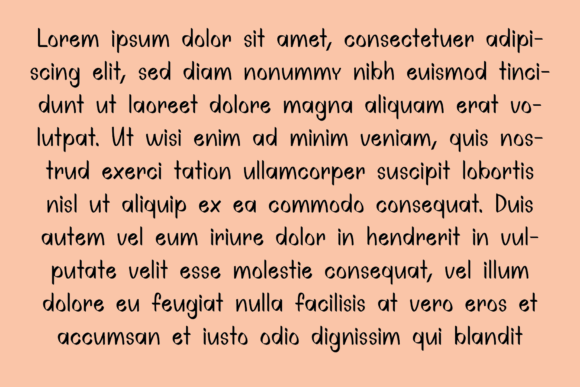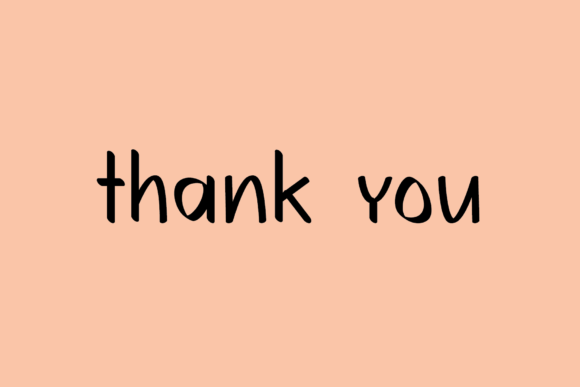
Unleash Your Creativity with the Caracal Font
Have you ever been stuck in a creative rut, staring blankly at your design software, searching for that perfect font to bring your vision to life? You’re not alone. We’ve all been there. But what if you could add a dash of whimsy and fun to your designs with a single click?
Enter the Caracal Font, a delightful handwritten typeface that’s sure to brighten up any project. Whether you’re crafting a logo, wedding invitation, or advertisement, this charming font is the perfect addition to elevate your design. Its friendly and quirky nature makes it a valuable asset for designers looking to add a personal touch to their work. With the Caracal Font, you’ll be able to create designs that truly stand out from the crowd.
- Unique Characteristics: Caracal Font features a unique blend of modern and geometric elements, resulting in a distinctive and eye-catching design.
Designer Review: Caracal Font
I recently had the chance to work with the Caracal Font, and I must say, it’s a mixed bag. While it has some great qualities, it also has some limitations that might make it less suitable for certain projects.
- ✨ Unique Design: The Caracal Font has a distinctive, exotic feel to it, making it perfect for projects that need a bit of flair.
- ✨ Versatile: This font can be used for a wide range of applications, from body text to headings, and even logos.
- ⚠️ Limited Character Set: The Caracal Font has a relatively small character set, which can make it difficult to use for languages that require a lot of special characters.
- ⚠️ Not Ideal for Small Text: The font’s design can make it difficult to read at small sizes, which is a problem if you need to use it for body text or other small-scale applications.
Overall, I think the Caracal Font is a solid choice for projects that require a unique, exotic feel. However, it’s not without its limitations, and you should carefully consider whether it’s the right fit for your needs.
Getting the Most Out of the Caracal Font
Here are some tips to get the most out of the Caracal Font:
- Use the Caracal Font for headings and titles to add a touch of elegance.
- Combine the Caracal Font with other fonts to create a unique and visually appealing design.
Compared to Caracal Font, Inter Font has a more geometric and clean design, which gives it a more contemporary look. Inter Font is also more suitable for digital interfaces, while Caracal Font has a more stylized and decorative feel.
Compared to Caracal Font, Montserrat Font has a more geometric and modern design, which gives it a more urban feel. Montserrat Font is also more suitable for use in large sizes, while Caracal Font is more suitable for use in smaller sizes.